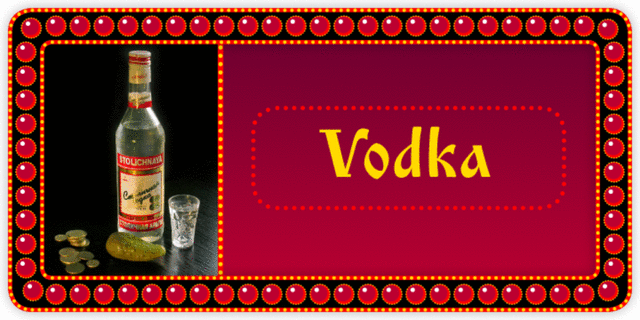
About IzhitsaIzhitsa was designed at Polygraphmash type design bureau in 1988 by Svetlana Yermolaeva. Based on Kirillitsa (1982), inspired by typographic poluustav of the Printing Office of the Russian Empire Academy of Science (late 19th century). Shadow style was added by Alexander Tarbeev in 1994. Latin alphabet was added by Oleg Karpinsky in 2009.
Associations for font family IzhitsaTypeface personality and character:
hempen, homespun, rustic, religious, church, orthodox christian, craft brewed, Artisanal, man-made, biblical, Christian, sacral, presents